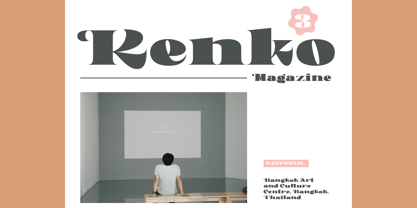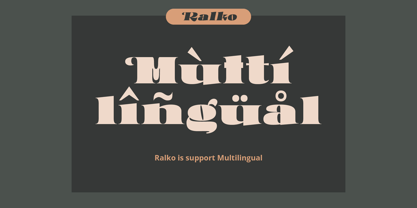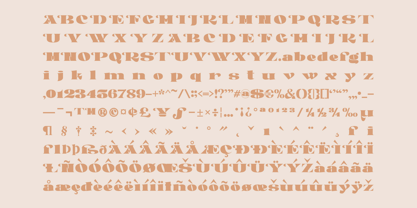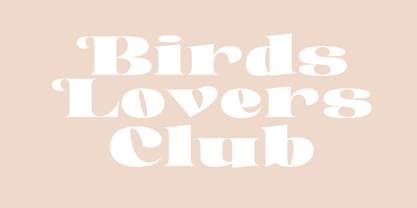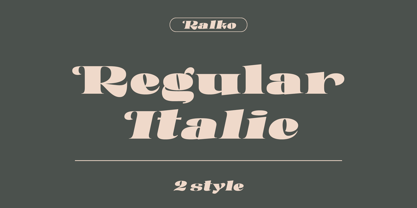
Ralko
The Ralko Font Family was designed by Trio Nazzar Saputra, Wahyu Hadi Yuana and published by Craft Supply Co. Ralko contains 2 styles and family package options. More about this family
Ralko is bold and intriguing—exuberant and unmissable, but playing a supporting role when needed. Ralko shines brightest as a display font, and is perfect for applications across fashion, theatre, cultural projects and pretty much any brand that wants to make a statement. Ralko also Suitable for Logo, greeting cards, quotes, posters, branding, name card, stationary, design title, blog header, art quote, typography, art, modern envelope lettering or book design, happening style like handdrawn design or watercolor design theme, craft design, any DIY project, book title, or any purpose to make your art/design project look pretty and trendy